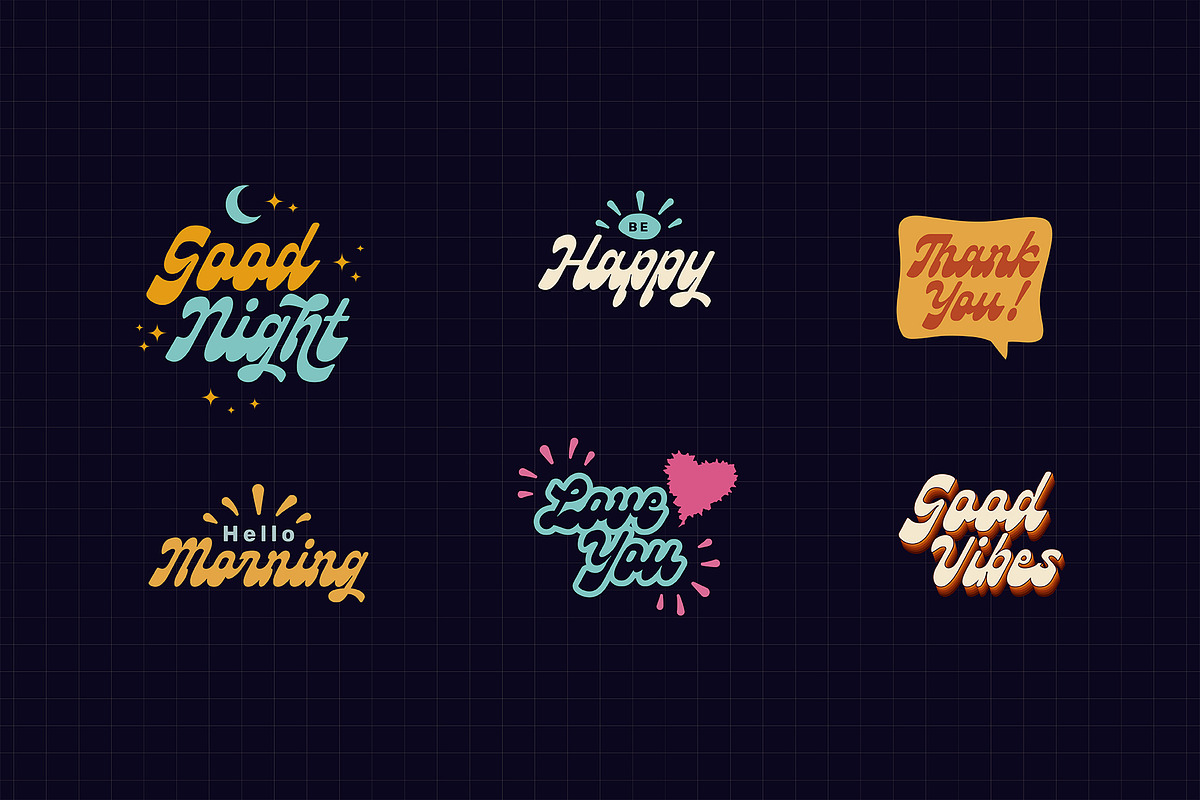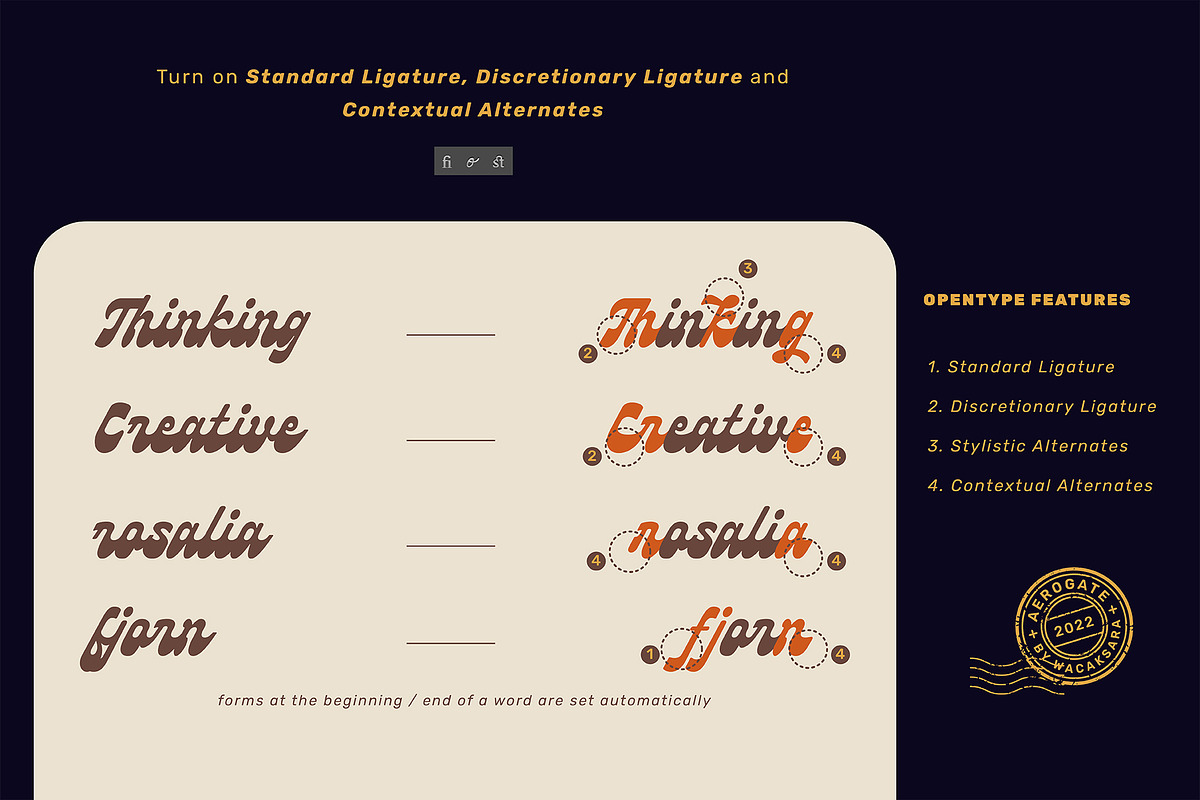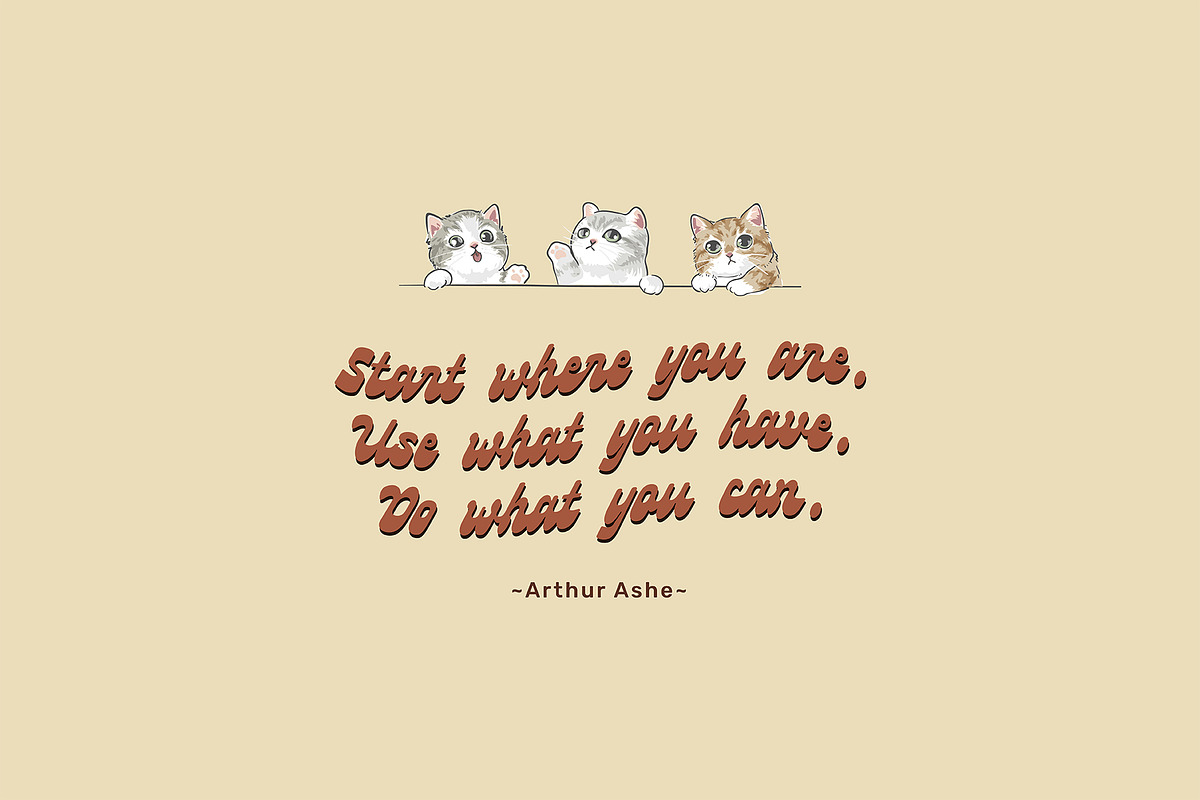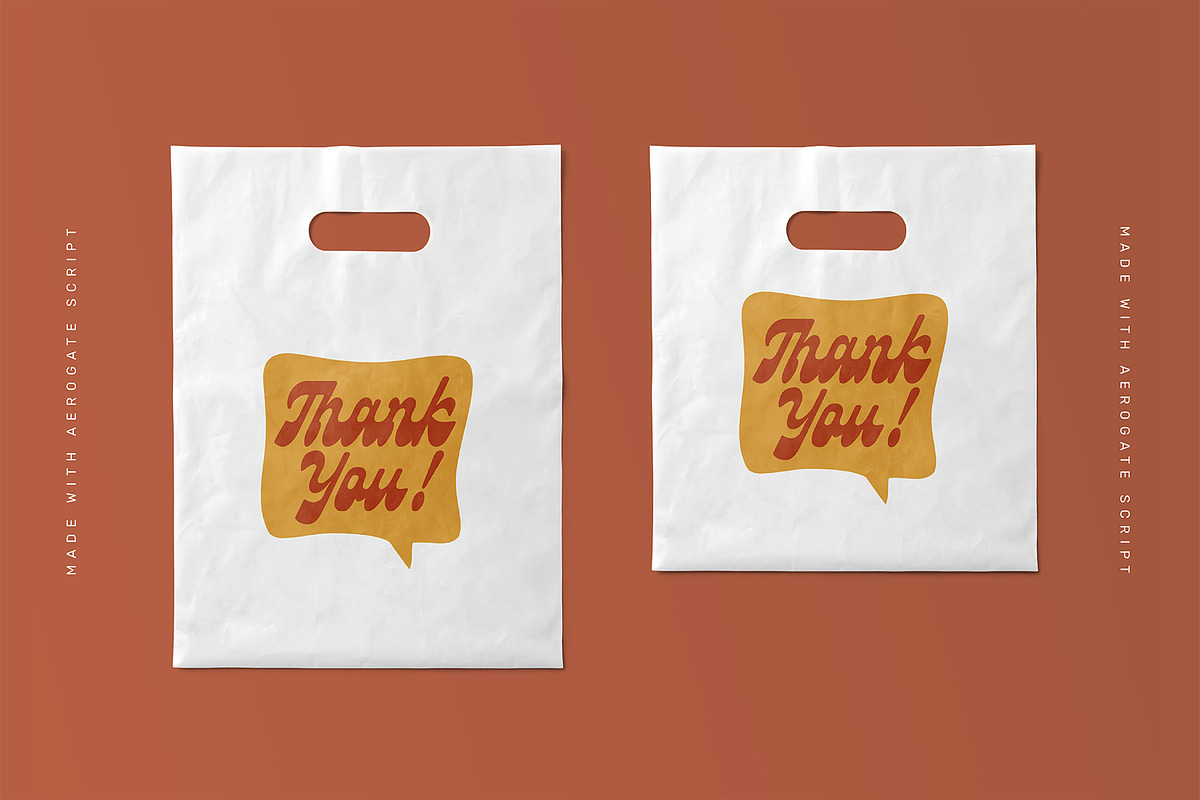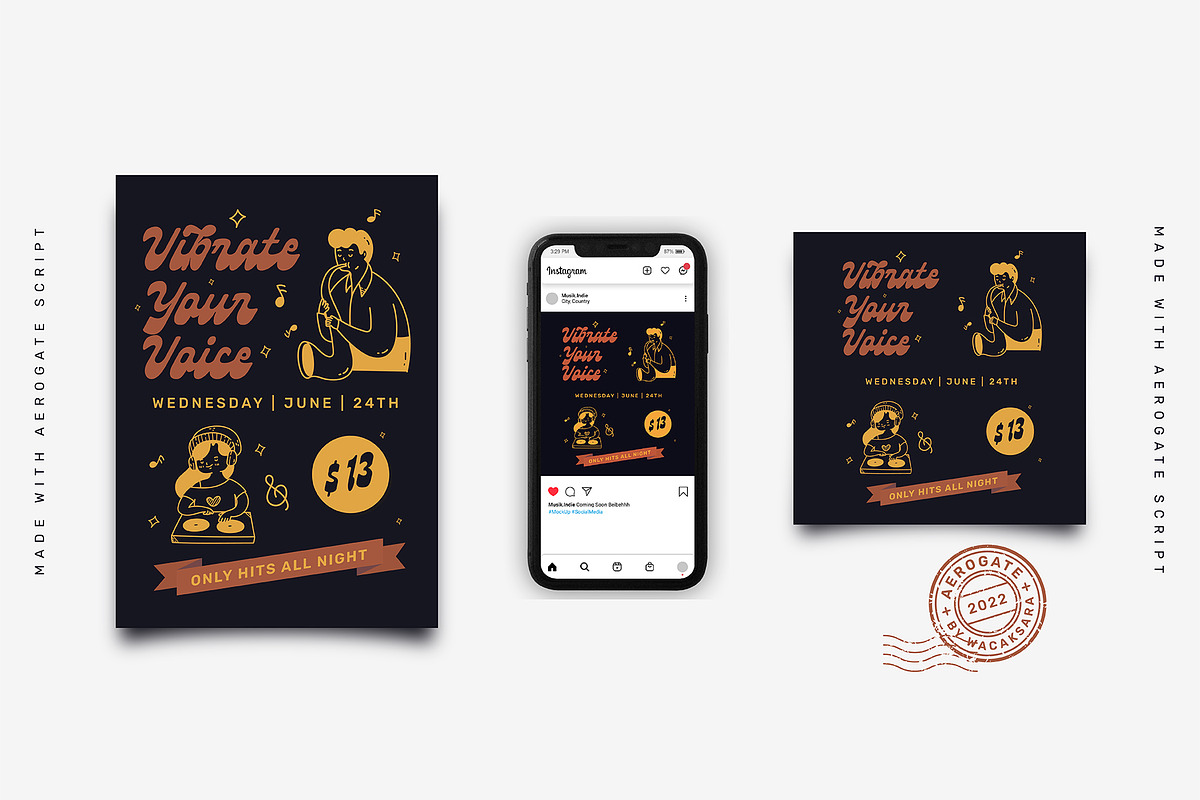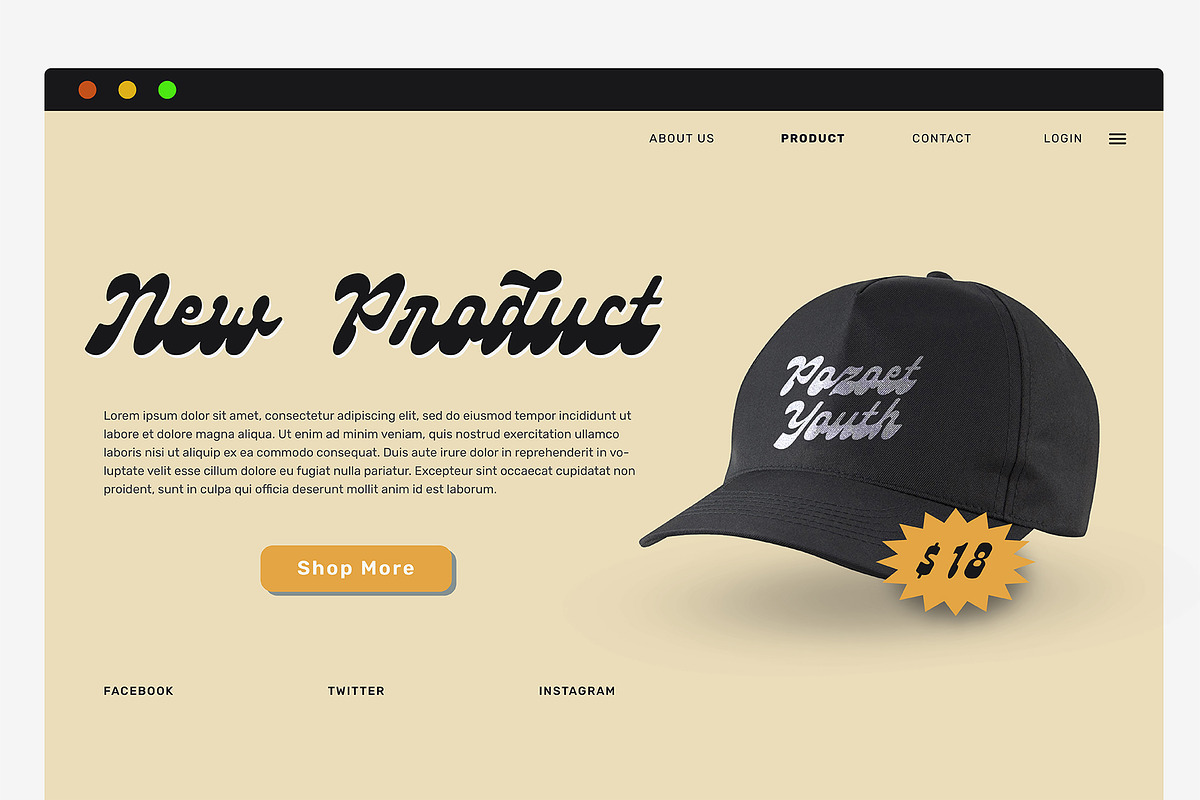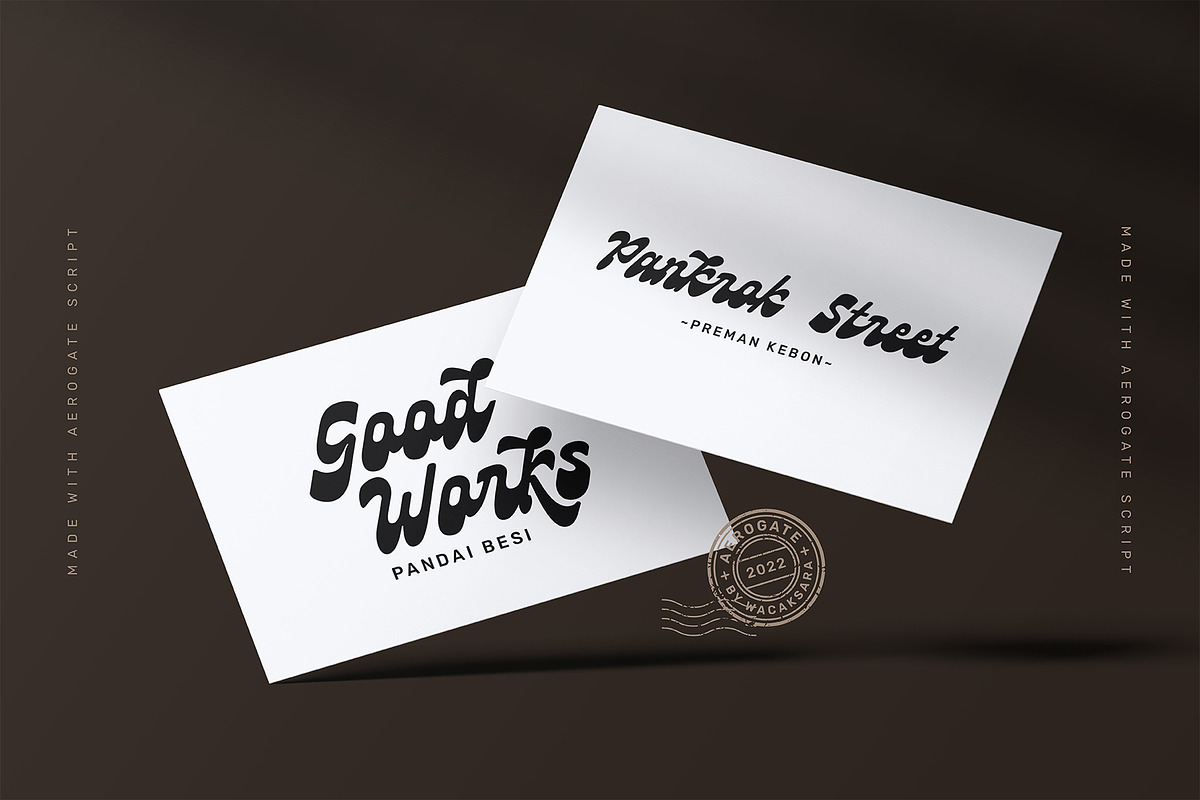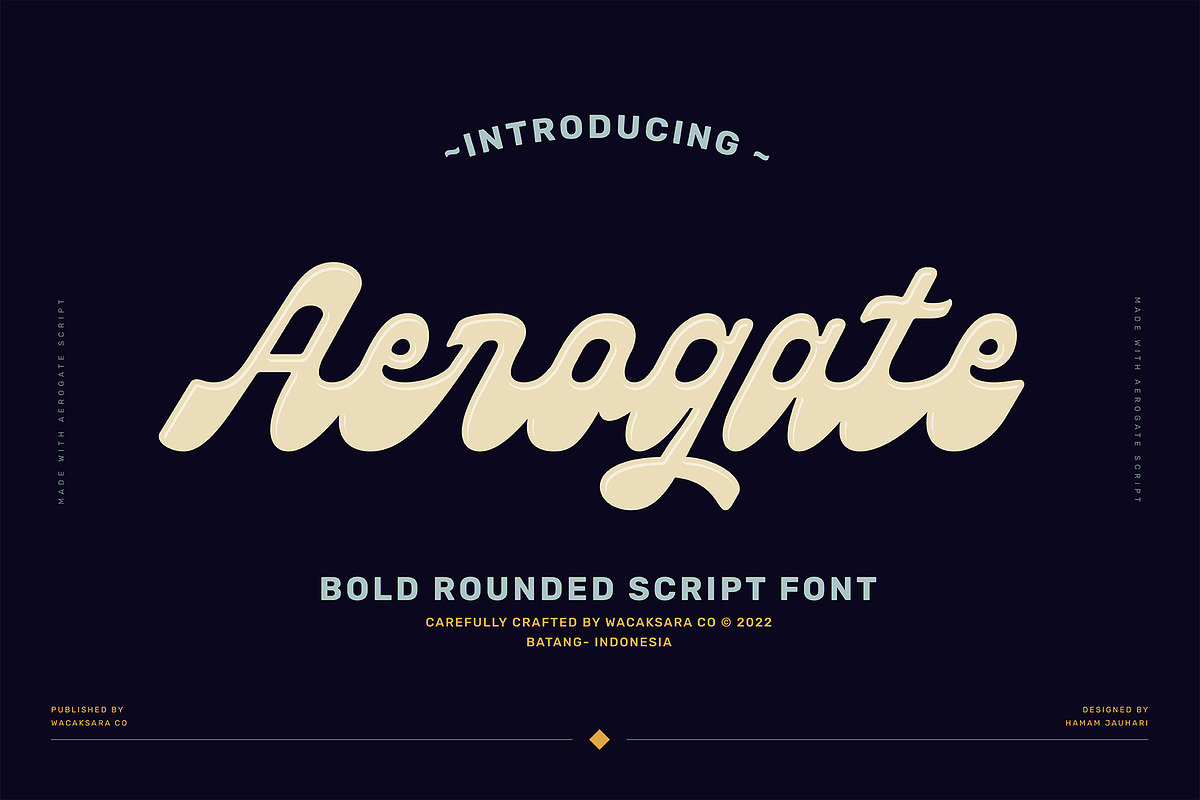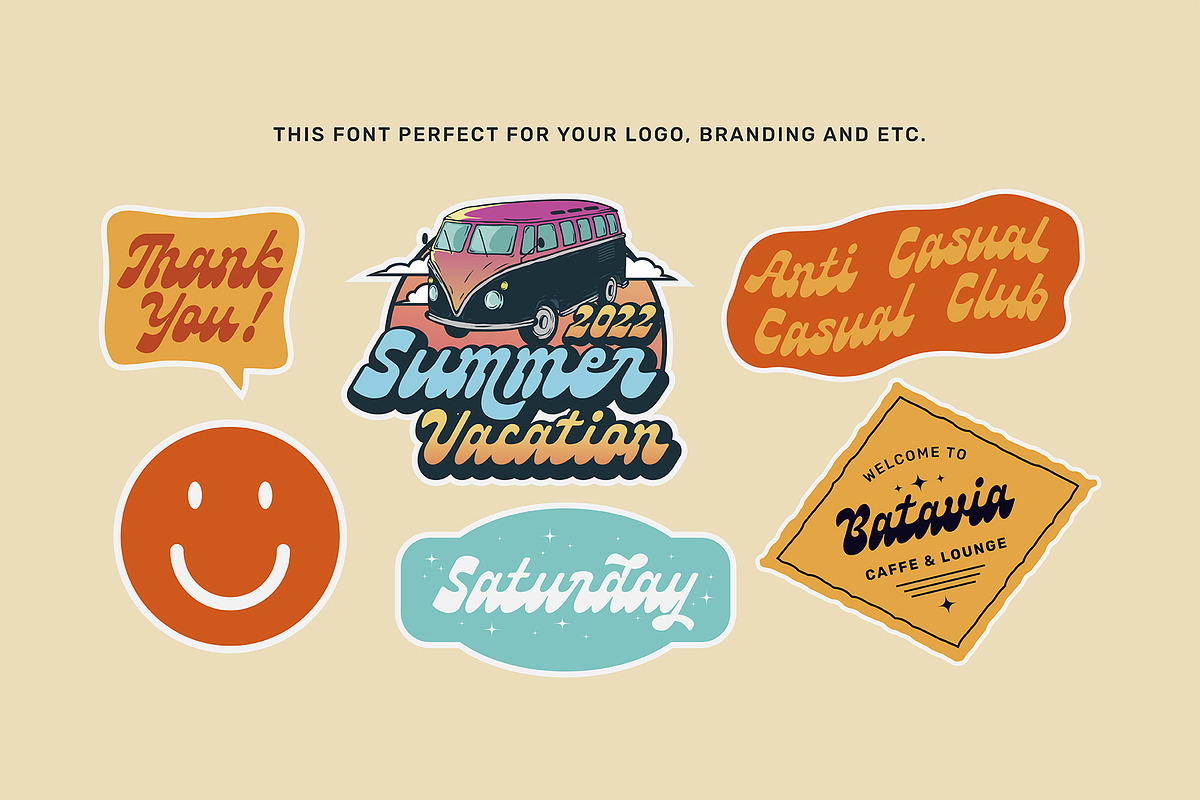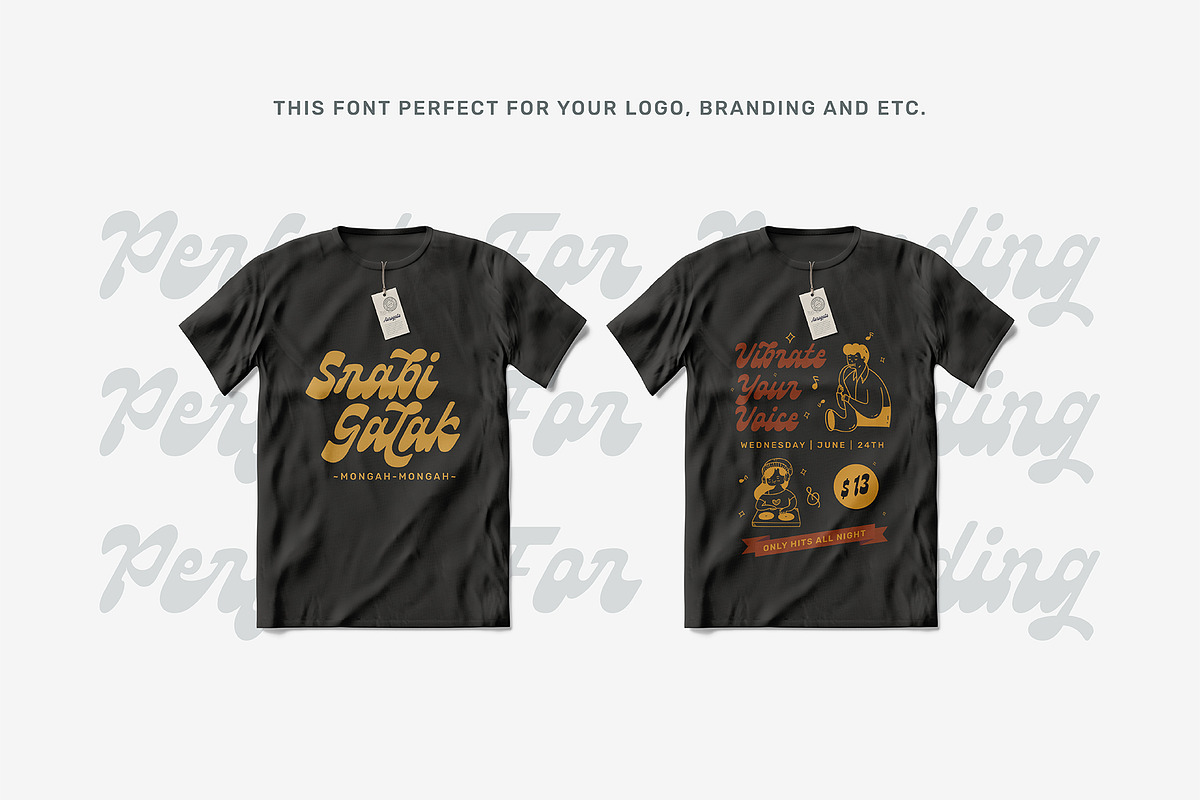
Aerogate Script
Aerogate is a bold rounded script font inspired by our best selling font called aerokids.
Aerogate is a bold rounded script font with a bold vintage style inspired by beautiful classic handwriting. made with care and fun without eliminate characteristics of our font.
Aerogate created with a tons of opentype features, contextual alternates, ligatures, and stylistic sets. Make forms at the beginning / end of a word are set automatically. It is smart and it is working in adobe software.
This font is perfect for your creative projects such as Logotype, printed quotes, invitations, business cards, product packaging, headers, Letterhead, Apparel , Web design, Magazine, Book, Stickers, Labels etc.
- Accents ( Multilingual Characters )
- Opentype feature : contextual alternates, ligatures, and stylistic sets.